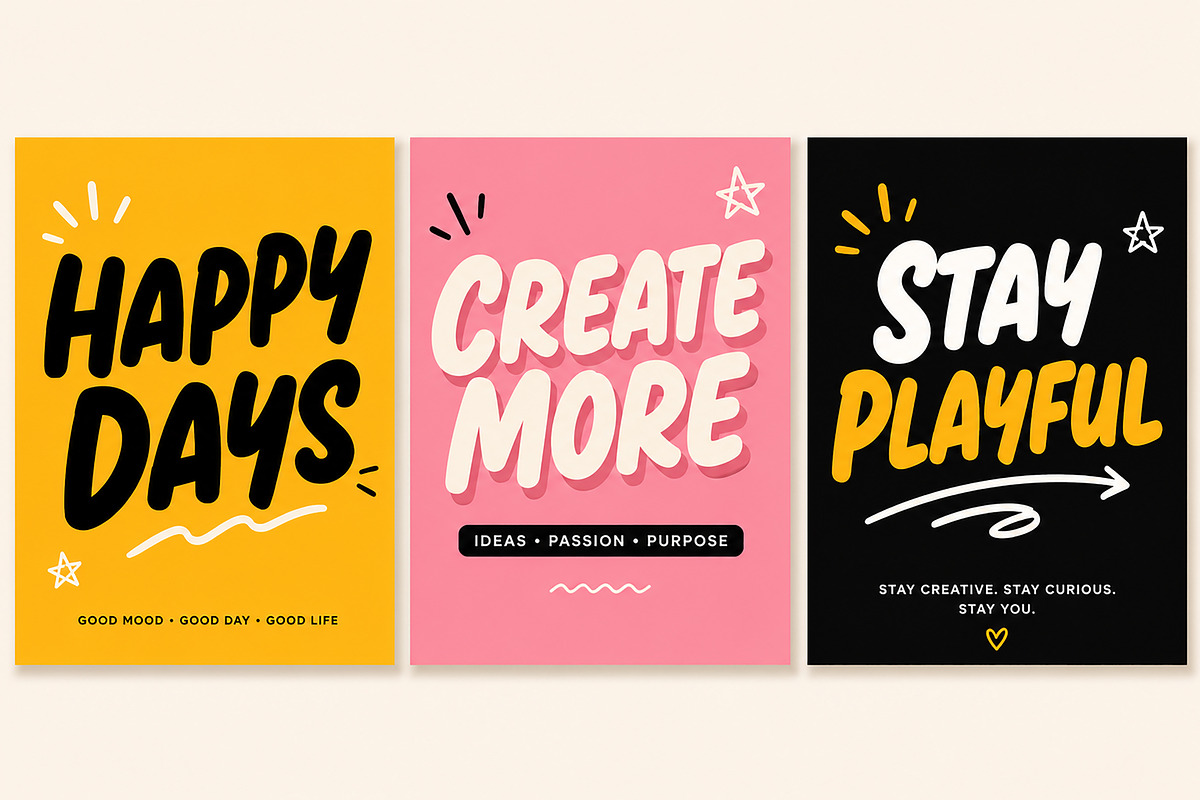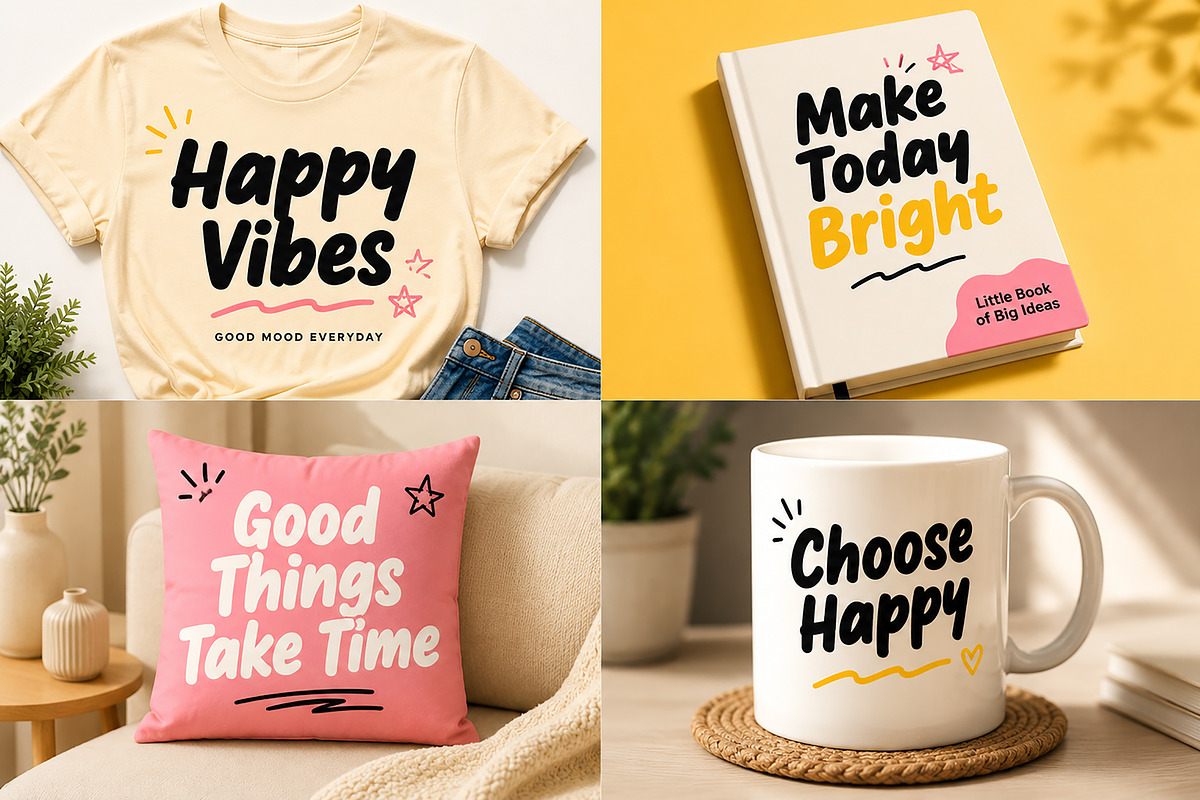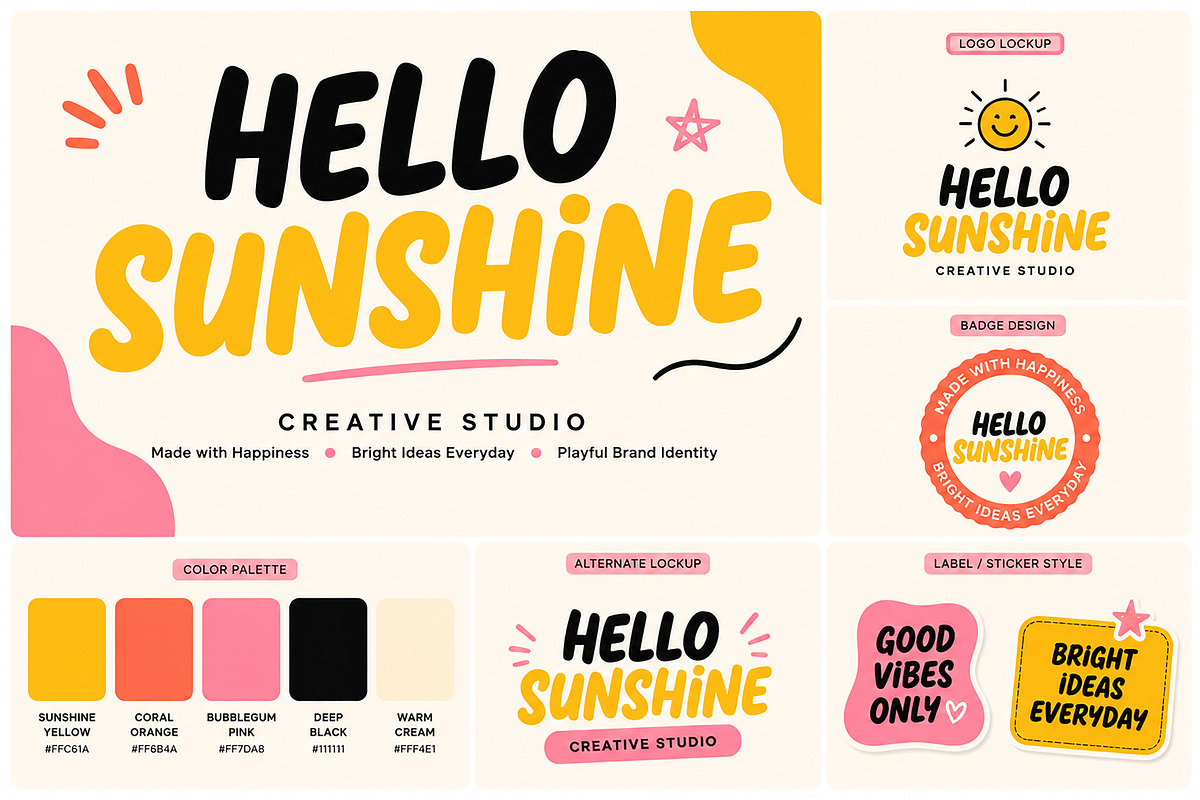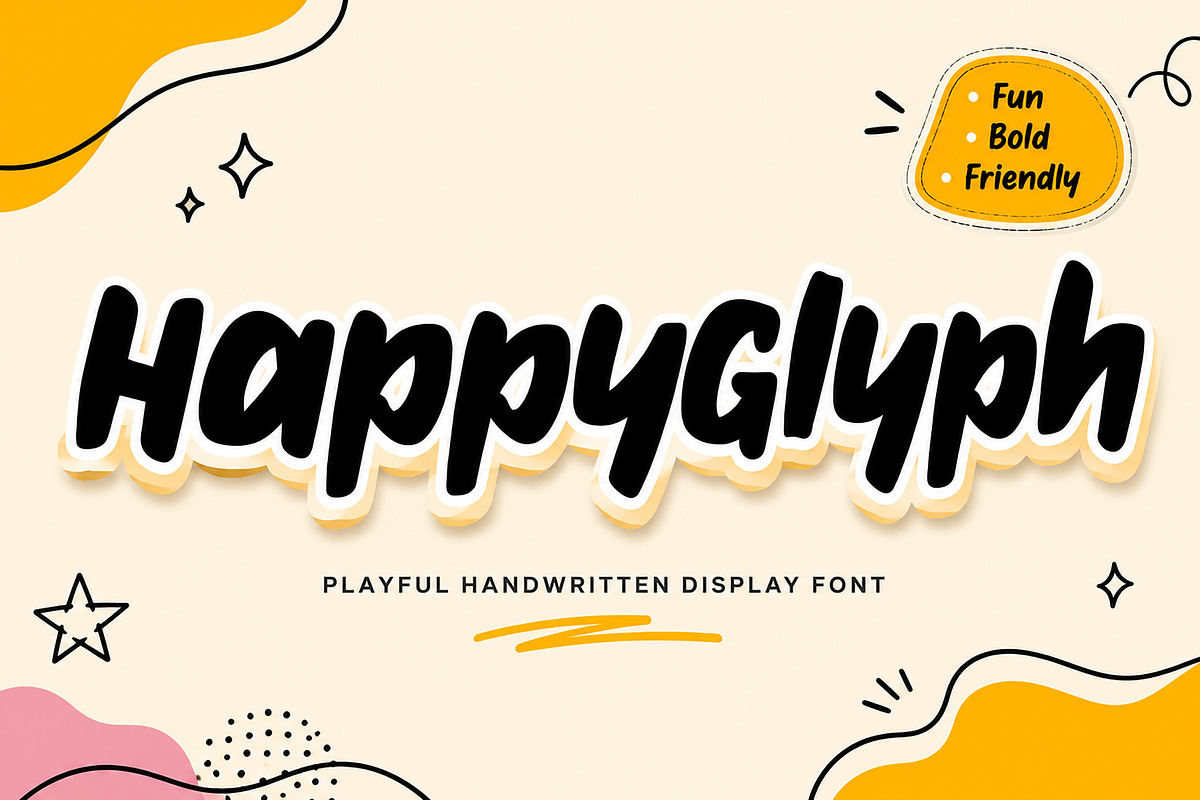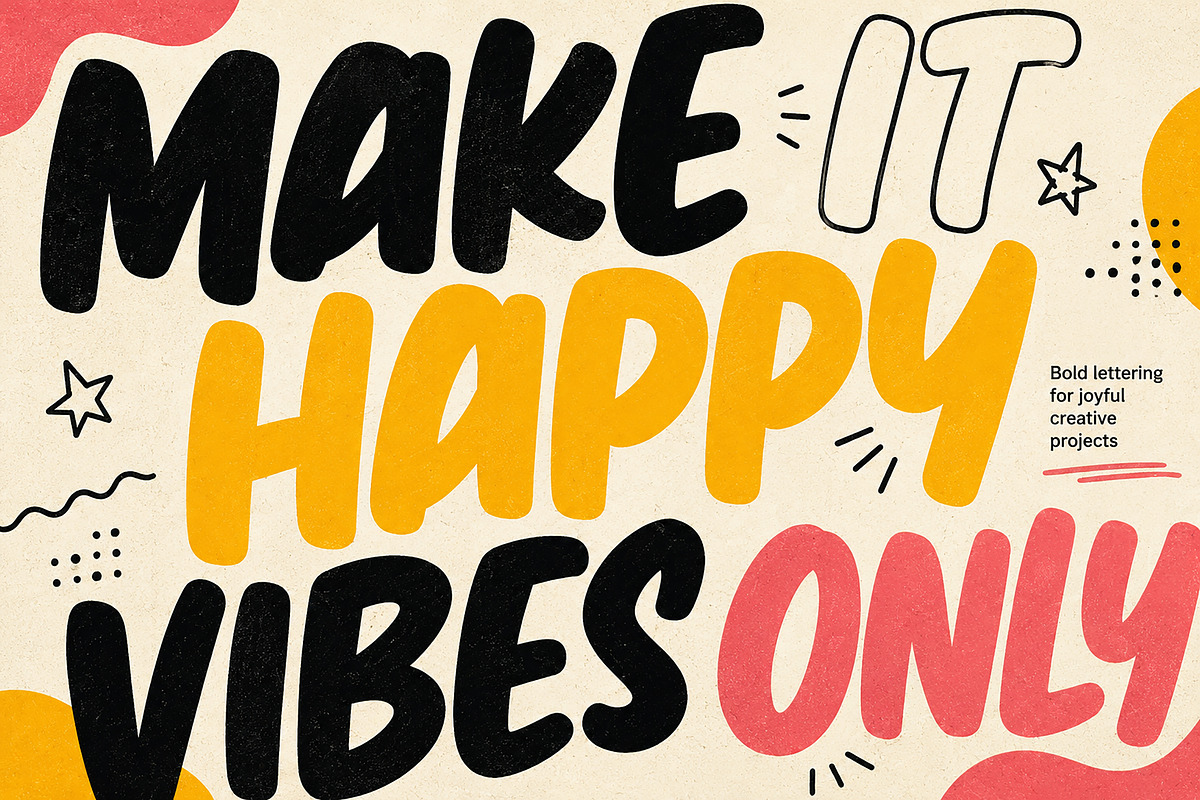
HappyGlyph
HappyGlyph – Playful Handwritten Display Font
Bring joy, warmth, and personality to your creative projects with HappyGlyph, a bold handwritten display font designed to make every word stand out. Featuring smooth brush-inspired strokes, rounded edges, and a fun handcrafted feel, this font is perfect for designs that need a cheerful, friendly, and eye-catching look.
Whether you're creating logos, social media graphics, branding, packaging, posters, children's products, greeting cards, or merchandise, HappyGlyph delivers a playful yet professional appearance that instantly grabs attention.
Its bold letterforms remain highly readable while adding a natural handwritten character, making it an excellent choice for both print and digital designs.
Branding & Identity
Posters & Headlines
T-Shirt Designs
Stickers
Packaging
Greeting Cards
Kids' Products
Café & Restaurant Branding
YouTube Thumbnails
Creative Studio Projects
Lifestyle Branding
Bold Handwritten Display Style
Smooth Brush-Inspired Letterforms
Clean & Easy to Read
Fun and Friendly Personality
Perfect for Large Headlines
High-Quality Letter Spacing
Works for Print & Digital Projects
Recommended For
Creative designers, branding agencies, content creators, entrepreneurs, small businesses, print-on-demand sellers, and anyone looking for a fun, bold, and memorable display font.